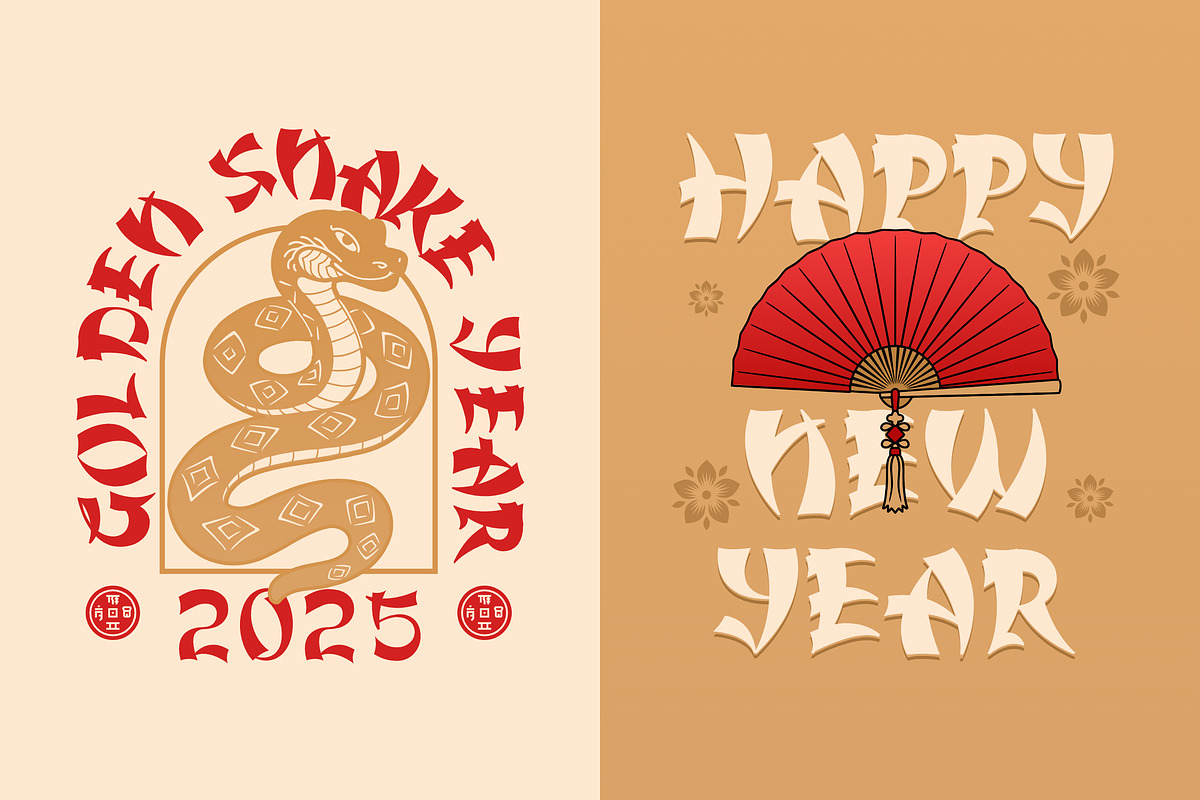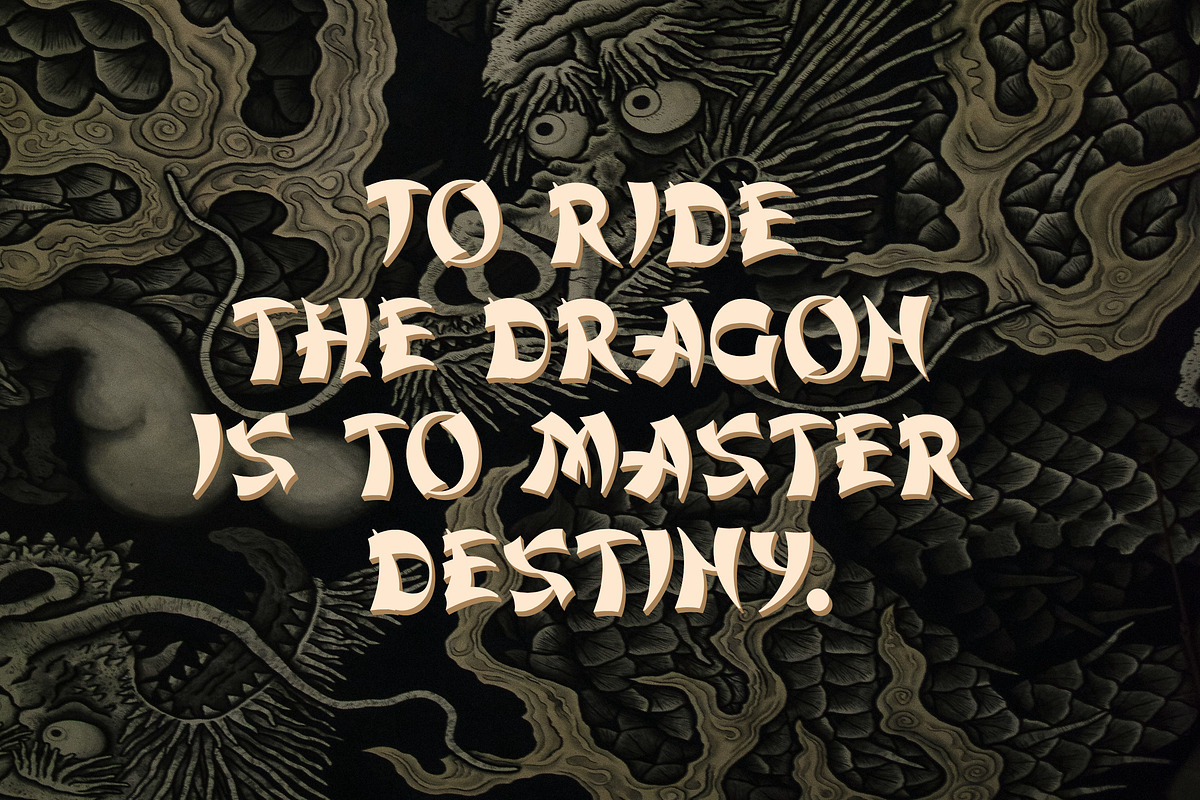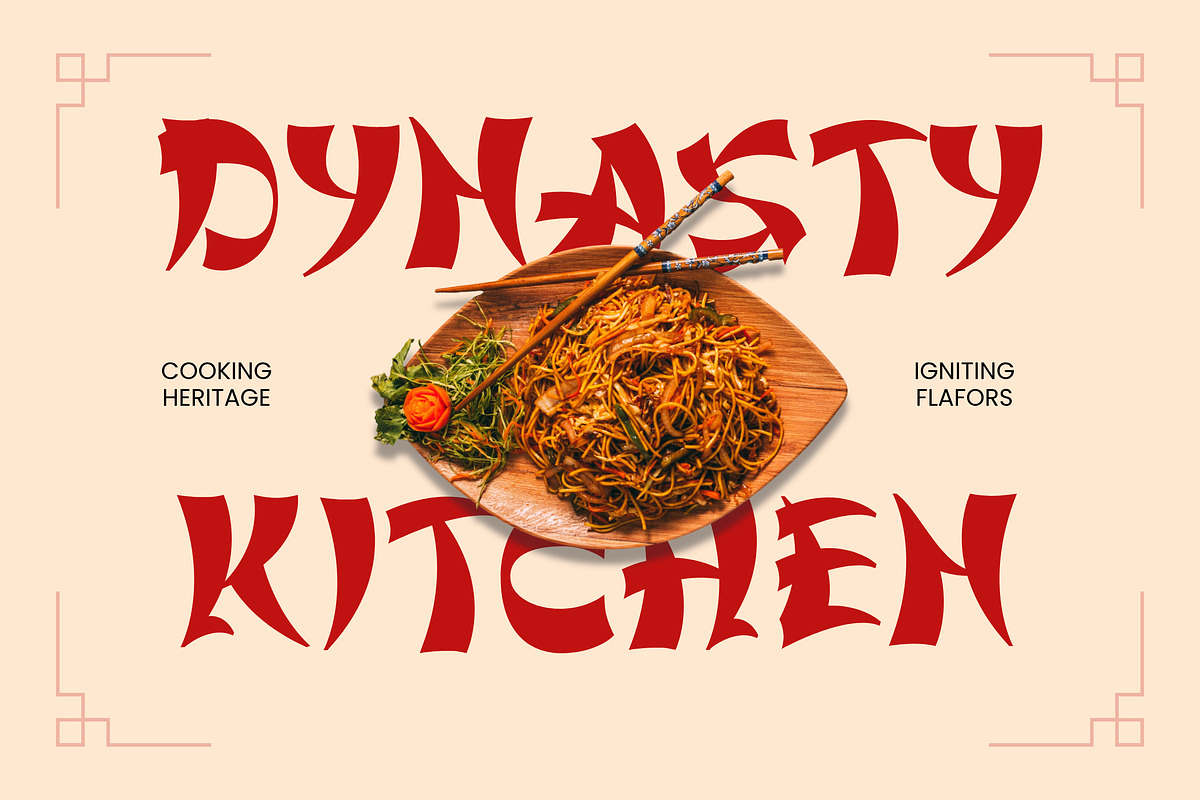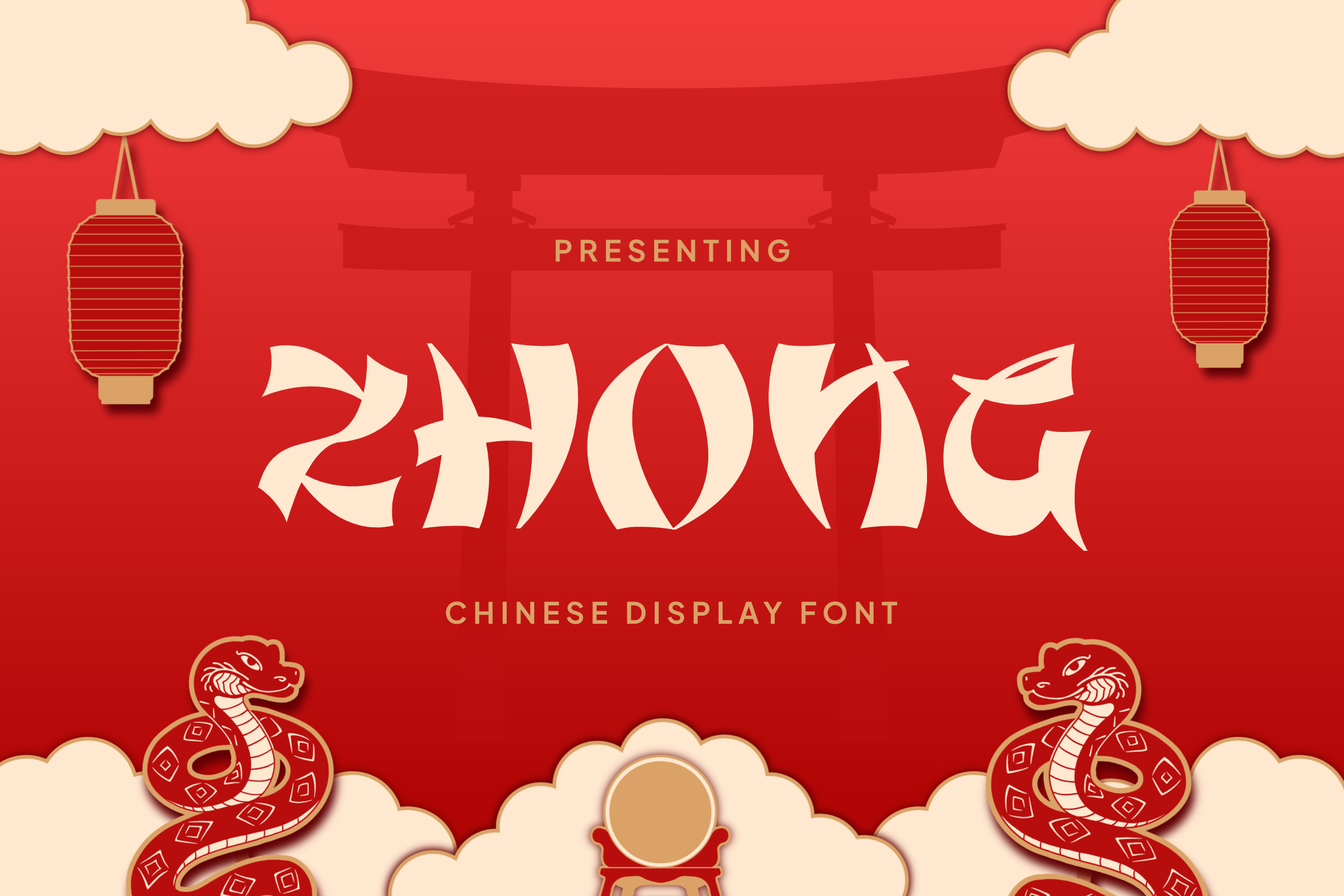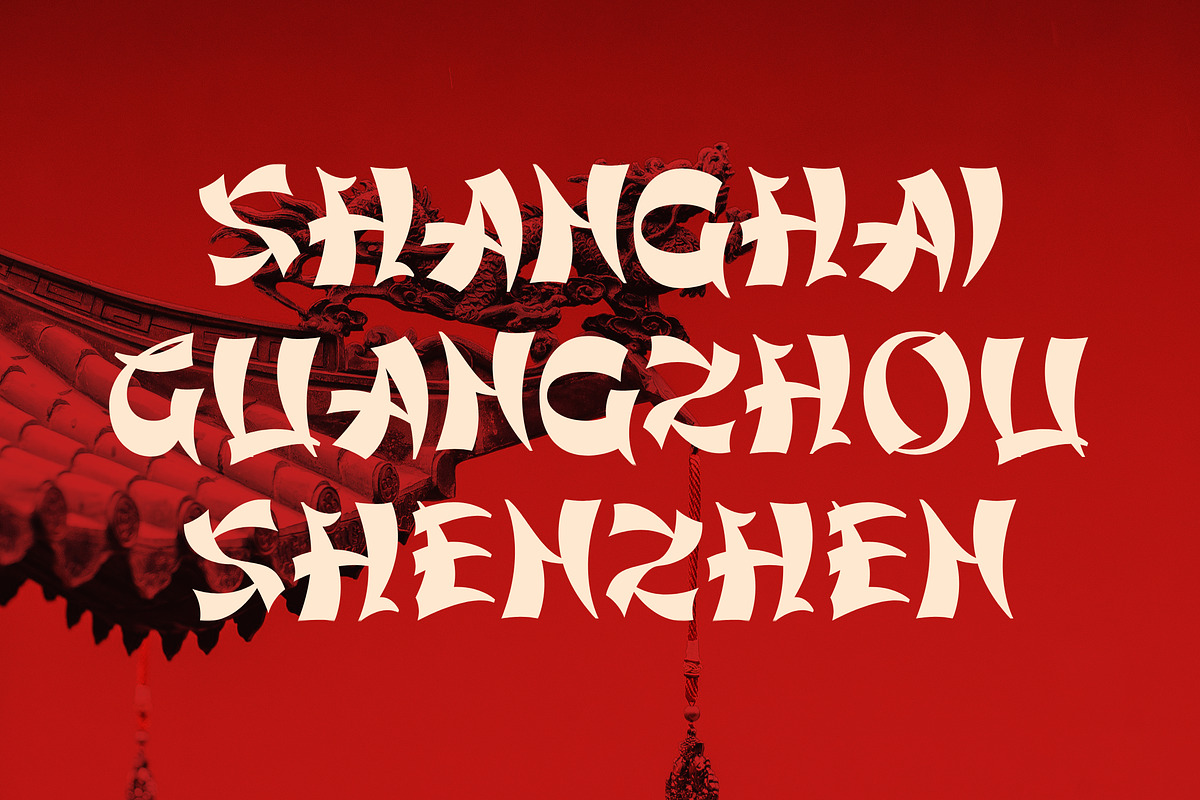
Zhong - Traditional Asian Typeface
Meet Zhong, a powerful and striking display font that brings a modern, edgy feel to traditional asian aesthetics. Inspired by the bold, angular strokes of calligraphy, this all caps font is designed to be impactful and eye catching.
Each letter features sharp, chiseled terminals and dynamic flares, giving your text a strong, stylized look that is full of character. The thick, confident letterforms are perfect for making a statement, whether used for restaurant branding or festive event poster.
Zhong is incredibly versatile for any project needing a touch of Eastern flair, including:
- Cultural Events: Perfect for Lunar New Year or festival branding.
- Branding: Ideal for logos, restaurant menus, and food packaging.
- Headlines: Creates bold titles for posters, banner, travel magazines, or websites.